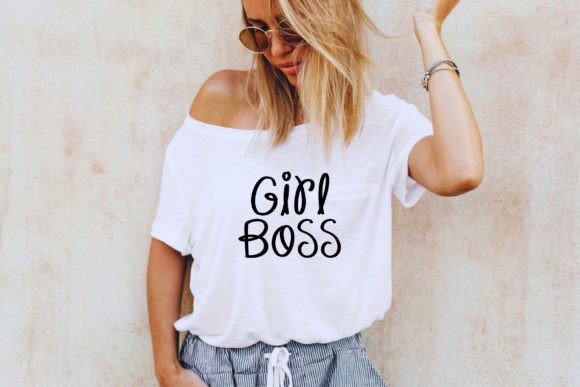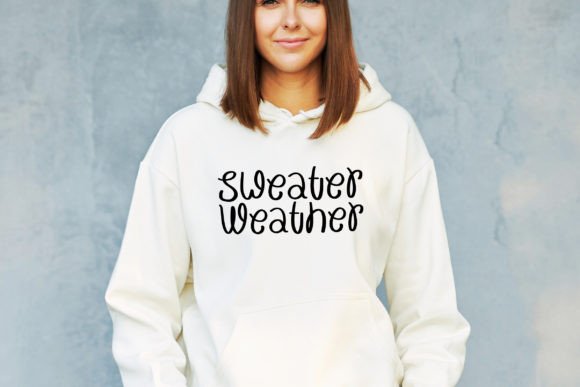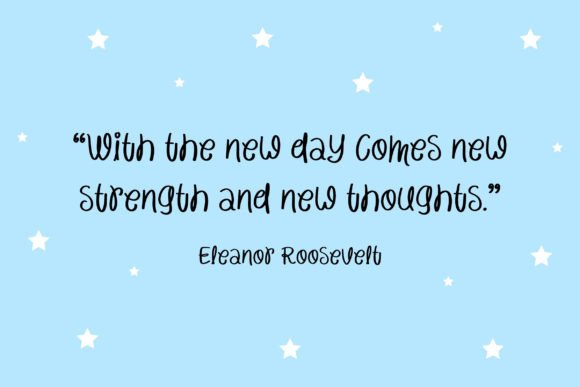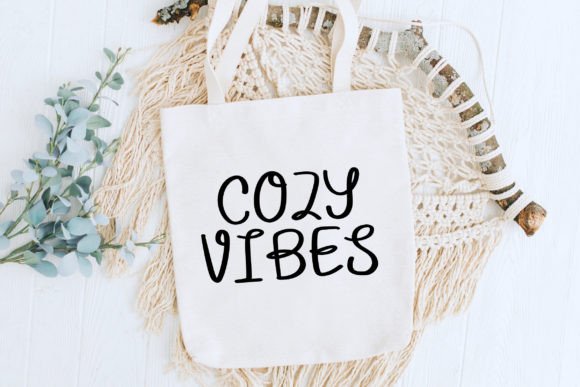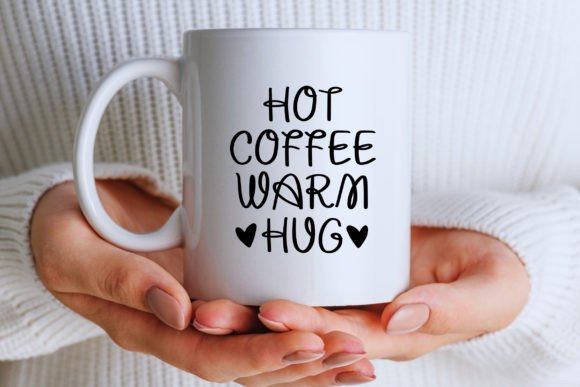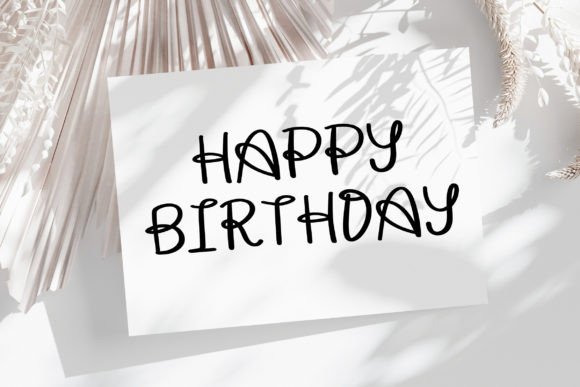
Discover the Delightful World of Avenoir Font
I’ll never forget the time I was working on a project for a client’s birthday party invitations. I had a clear vision of a fun, playful design, but I was struggling to find the perfect font to bring it all together. That’s when I stumbled upon Avenoir Font, and it was love at first sight! 💕
This quirky and cute font effortlessly combines readability with playful charm, making it a versatile choice for a myriad of applications. Whether you’re designing shirts, tote bags, mugs, stickers, invitations, social media posts, quotes, or wall art, Avenoir injects a sense of whimsy into every project.
A Honest Review of Avenoir Font
What I Love About Avenoir Font
- ✨ Playful aesthetic: Avenoir’s unique design transforms the ordinary into the extraordinary, making each creation a lively and enjoyable expression of your unique style.
- ✅ Excellent readability: Despite its playful nature, Avenoir remains highly legible, making it perfect for both short and long texts.
- 💡 Versatility: This font is suitable for a wide range of projects, from digital designs to print materials.
While Avenoir is an amazing font, there are a few things to keep in mind:
- 🤔 Limited use in formal contexts: Avenoir’s playful nature makes it less suitable for formal documents, such as business reports or academic papers.
- ⚠️ Glyph compatibility: Some glyphs might not work perfectly in older software or browsers, so it’s essential to test the font in your design environment.
Avenoir was designed by a team of creatives who wanted to create a font that would bring joy and playfulness to design projects. Inspired by the world of hand-lettering and street art, Avenoir combines unique character shapes with excellent readability.
Q: What type of projects is Avenoir suitable for?
A: Avenoir is perfect for a wide range of projects, including digital designs, print materials, social media posts, quotes, wall art, and more.